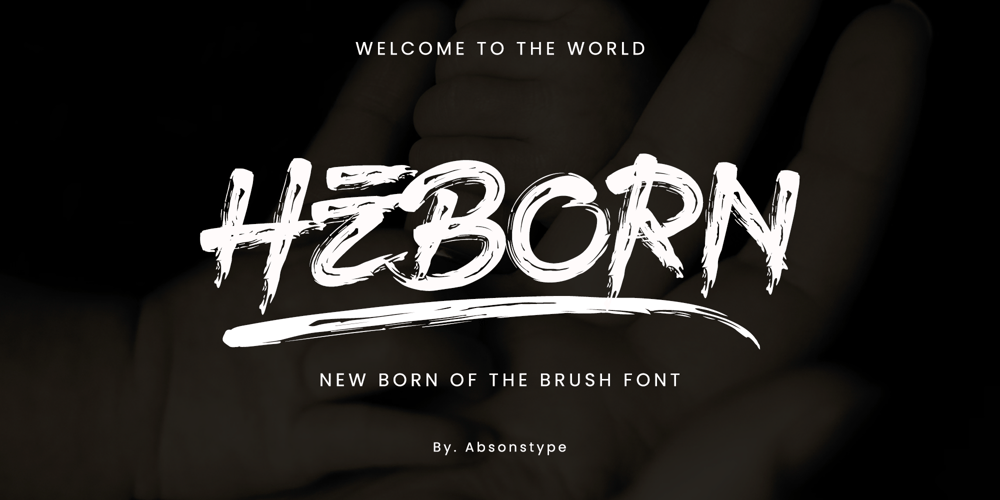
Heborn Font Family was designed by Edhi Prayitno and published by Absonstype. Heborn contains 1 styles and family package options. Looking to inject some energy into your typography? It’s time to check Heborn Brush Font.A bold & brazen, all-caps brush font ready to make its mark.Honestly it works perfectly for headlines, logos, posters, packaging, T-shirts and much more for branding and anything designs.Language Support • English, French, Italian, Spanish, Portuguese, German, Swedish, Norwegian, Danish, Dutch, Finnish, Indonesian, Malay, Hungarian, Polish, Croatian, Turkish, Romanian, Czech, Latvian, Lithuanian, Slovak, Slovenian.